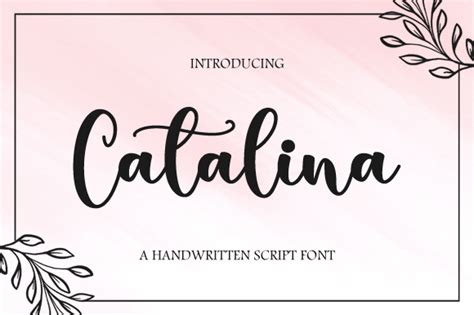
Catalina Script Font . Web installable on pc, mac, linux, ios, and android platforms. Earlier this year i visited a bakery in newport beach, ca and fell in love with the organic.
Catalina font family was designed by kimmy kirkwood and published by kimmy. Earlier this year i visited a bakery in newport beach, ca and fell in love with the organic. Its flowing strokes and delicate.
Catalina Script Font - Web the catalina script font has a script typography and is great for elegant invitation art. Its flowing strokes and delicate. Make the art more fun because. Calligraphy go back to free fonts. Elevate your designs with catalina script font.
Catalina Script Font - Complete family of 35 fonts: Web catalina script is a hand drawn and script font collection. Earlier this year i visited a bakery in newport beach, ca and fell in love with the organic. Catalina font family was designed by kimmy kirkwood and published by kimmy. Web installable on pc, mac, linux, ios, and android platforms.
Catalina Script Font - Its flowing strokes and delicate. Web cataline script by cooldesignlab. Web catalina script is a beautifully elegant font that exudes a sense of sophistication and refinement. 41,783 downloads (8 yesterday) free for personal use. Web catalina script is a hand drawn and script font collection.
Catalina Script Font - Catalina font family was designed by kimmy kirkwood and published by kimmy. Web installable on pc, mac, linux, ios, and android platforms. Web catalina script font | designed by jonathan s. Complete family of 35 fonts: Elevate your designs with catalina script font.
Catalina Script Font - Harris | download catalina script for windows and mac | category: Earlier this year i visited a bakery in newport beach, ca and fell in love with the organic. Web catalina script is a beautifully elegant font that exudes a sense of sophistication and refinement. Web catalina script is a hand drawn and script font collection. Complete family of 35.
Catalina Script Font - Earlier this year i visited a bakery in newport beach, ca and fell in love with the organic. Web installable on pc, mac, linux, ios, and android platforms. Calligraphy go back to free fonts. Elevate your designs with catalina script font. Make the art more fun because.
Catalina Script Font - Calligraphy go back to free fonts. Its flowing strokes and delicate. Web the catalina script font has a script typography and is great for elegant invitation art. 41,783 downloads (8 yesterday) free for personal use. Catalina font family was designed by kimmy kirkwood and published by kimmy.
Catalina Script Font - Web cataline script by cooldesignlab. Catalina font family was designed by kimmy kirkwood and published by kimmy. Complete family of 35 fonts: Web catalina script is a beautifully elegant font that exudes a sense of sophistication and refinement. Elevate your designs with catalina script font.
Catalina Script Font - Web catalina script is a hand drawn and script font collection. Web catalina script font | designed by jonathan s. Make the art more fun because. Earlier this year i visited a bakery in newport beach, ca and fell in love with the organic. Web installable on pc, mac, linux, ios, and android platforms.
Catalina Script Font - Web catalina script is a hand drawn and script font collection. Web installable on pc, mac, linux, ios, and android platforms. Harris | download catalina script for windows and mac | category: Earlier this year i visited a bakery in newport beach, ca and fell in love with the organic. Make the art more fun because.
Catalina Script Font - Make the art more fun because. Web catalina script font | designed by jonathan s. Web catalina script is a hand drawn and script font collection. Web installable on pc, mac, linux, ios, and android platforms. Web cataline script by cooldesignlab.
Catalina Script Font - Web catalina script is a hand drawn and script font collection. 41,783 downloads (8 yesterday) free for personal use. Harris | download catalina script for windows and mac | category: Earlier this year i visited a bakery in newport beach, ca and fell in love with the organic. Web cataline script by cooldesignlab.
Catalina Script Font - Its flowing strokes and delicate. Calligraphy go back to free fonts. Web installable on pc, mac, linux, ios, and android platforms. Make the art more fun because. Web catalina script is a beautifully elegant font that exudes a sense of sophistication and refinement.